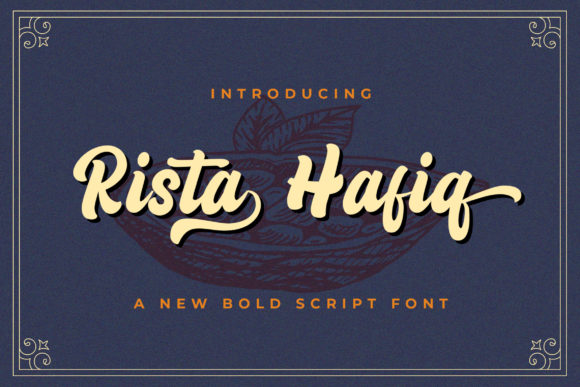
Step into an era of elegance, where words dance with flair and finesse. Introducing Rizta Hafiq Font, the vintage script font that exudes a timeless charm. With its bold and retro glyphs, Rizta Hafiq transcends the ordinary, captivating your audience at first sight.
Embark on a journey to the past, where typography meets art deco. Rizta Hafiq's unique swashes are meticulously crafted to evoke the allure of bygone eras. Unleash your creativity and let your designs speak volumes, whether you're crafting packaging designs, captivating advertisements, or forging unforgettable brand identities.
With Rizta Hafiq at your fingertips, you hold the key to unlock the secrets of vintage aesthetics. Transport your audience to a time of sophistication and style, where every word carries weight and every design tells a story.
Unleash the power of Rizta Hafiq, a font that breathes new life into the vintage aesthetic. As a PUA encoded font, Rizta Hafiq grants you effortless access to its extensive glyphs and swashes. Experience the freedom to customize your designs with ease, adding a touch of vintage magic to every project.